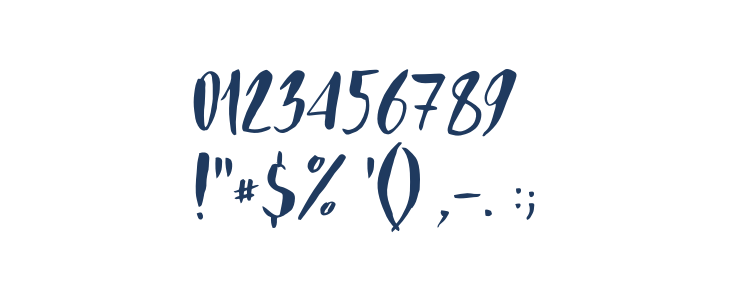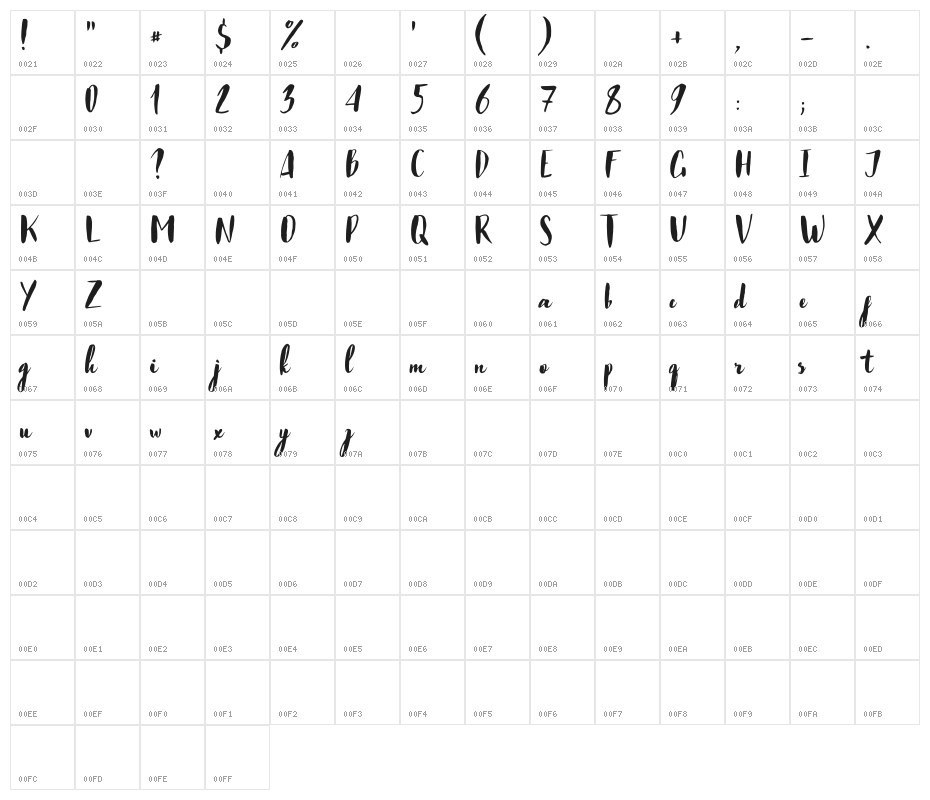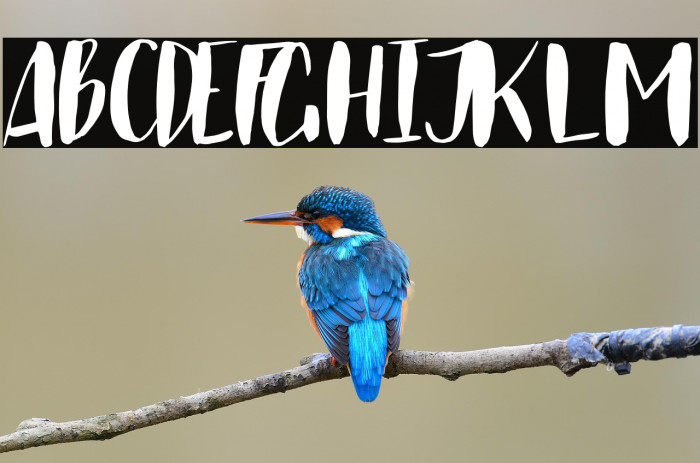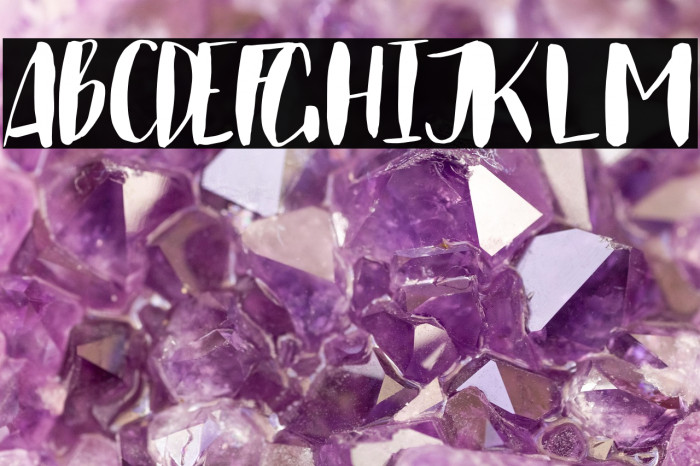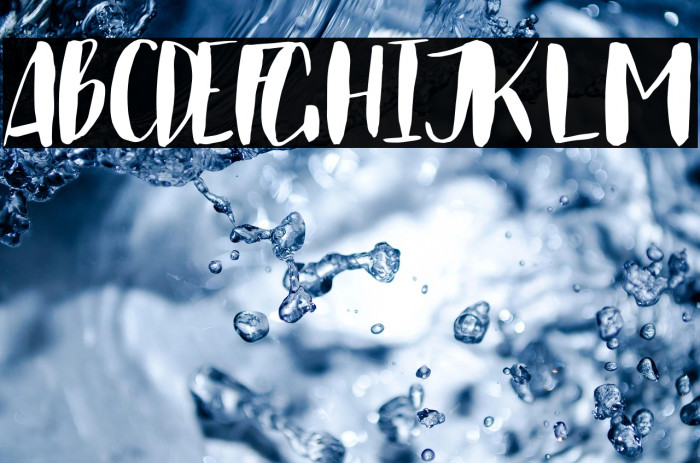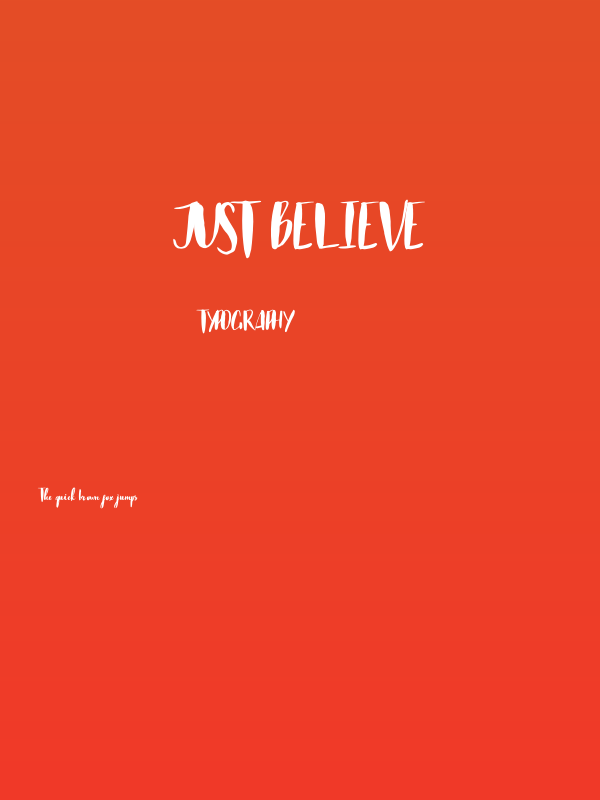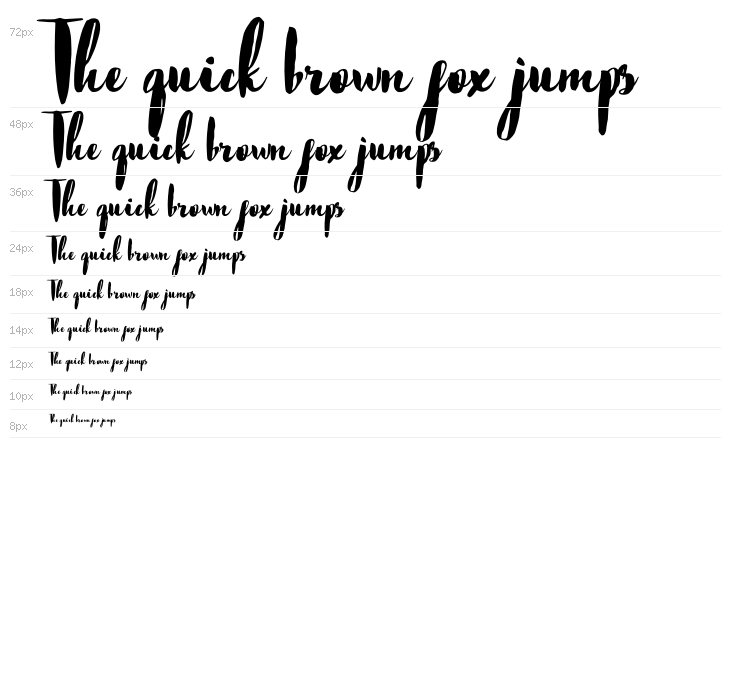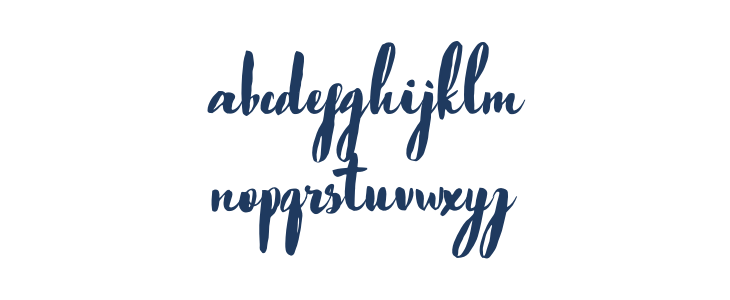
Just Believe Font
Just Believe Description
This font features a bold and expressive handwritten style, characterized by its fluid and dynamic strokes. The uppercase letters exhibit a strong presence with their thick, sweeping lines, while the lowercase letters maintain a more delicate and flowing appearance. The numbers and special characters are crafted with the same artistic flair, ensuring consistency across all elements. This font's unique style makes it stand out, offering a sense of creativity and personal touch. Its design is both modern and artistic, suitable for projects that require a personal or informal tone.